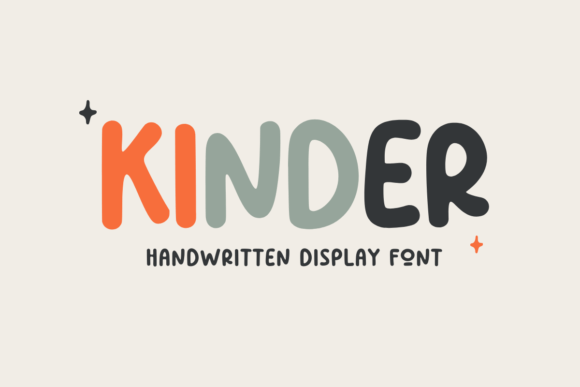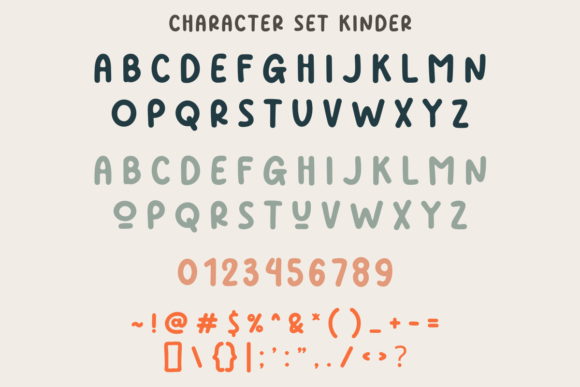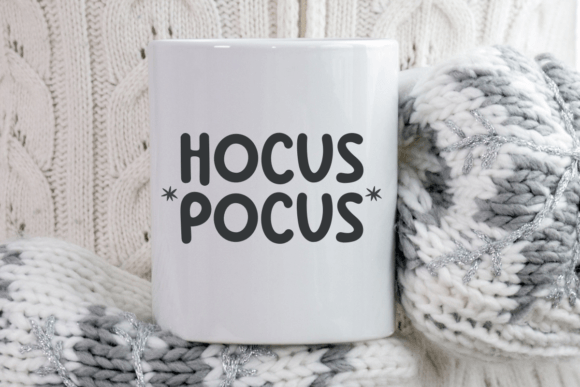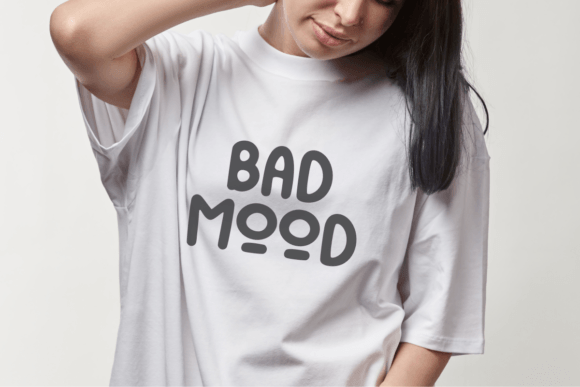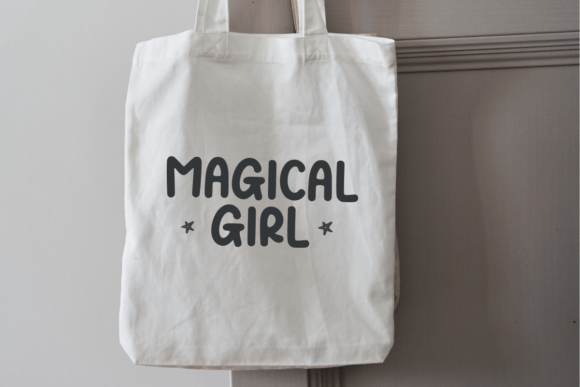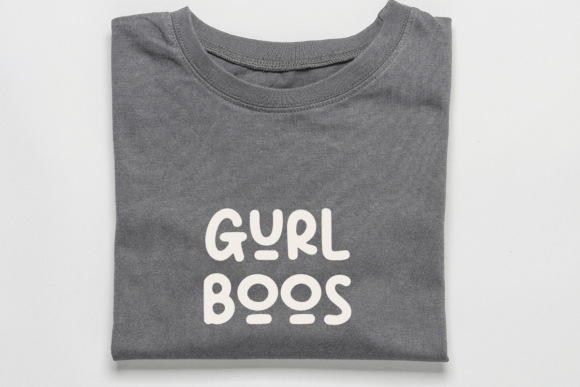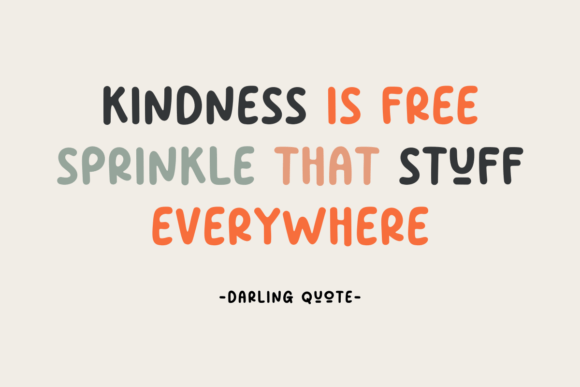
Unleash Your Creativity with Kinder Font
Do you remember the excitement of rummaging through your grandmother’s craft box, filled with colorful markers, glitter, and endless possibilities? As you sat at the kitchen table, surrounded by scraps of paper and glue, you brought your imagination to life. This sense of creative freedom is what drives us to create, and it’s exactly what the Kinder Font embodies.
Kinder Font is a bold, handmade typeface that adds a unique touch to any project. Whether you’re designing a birthday card, a t-shirt, or a mug, this font shines bright, capturing attention and sparking imagination. For designers, Kinder Font is a valuable tool, allowing you to differentiate your creations and bring a personal touch to your work. With Kinder Font, you can turn your ideas into magic, making every project a special and memorable experience.
Kinder Font Key Features
- Unique Characteristics: Kinder Font is a custom-designed font with a playful, childlike feel, featuring rounded shapes and soft lines.
- Font Weight and Style: The font family includes a range of weights, from Light to Bold, and styles, including Regular, Italic, and Bold Italic.
- Scalability: Kinder Font is designed to be highly scalable, making it suitable for use in a variety of applications, from small text to large headlines.
Kinder Font Review
As a designer, I had the chance to work with the Kinder Font and here’s my honest review.
- Unique Character: Kinder Font has a unique character that makes it stand out from other fonts. It’s a perfect choice for designs that require a playful and friendly tone.
- Legibility: Despite its playful nature, Kinder Font is highly legible, making it suitable for body text and other areas where clarity is crucial.
- Font Variations: The font comes in a range of weights and styles, giving designers the flexibility to choose the perfect fit for their project.
- Limited Versatility: While Kinder Font excels in playful and friendly designs, it may not be the best choice for formal or professional projects.
- Overuse: Its unique character can make the font feel overused if not used judiciously. It’s essential to balance its use with other fonts to avoid visual fatigue.
Kinder Font is a great addition to any designer’s toolkit. Its unique character and high legibility make it an excellent choice for designs that require a playful and friendly tone. However, it’s essential to use it thoughtfully to avoid overuse and maintain its effectiveness.
Kinder Font Practical Application Guide
Kinder Font is ideal for creating child-friendly materials, such as:
- Children’s book covers and illustrations
- Education materials, like worksheets and textbooks
To get the most out of Kinder Font, use it in combination with bright and playful colors, and consider adding illustrations or graphics to enhance the design.
Alternatives to Kinder Font for Designers
Great Vibes Font is a modern, elegant script font perfect for titles and headings. It’s ideal for use in creative industries, such as advertising and fashion. Great Vibes Font has a similar friendly and approachable feel to Kinder Font, but with a more sophisticated and refined look.
Carolyna Pro Font is a beautiful, handwritten font that works well for quotes, titles, and body text. It’s suitable for use in various industries, including publishing and education. Carolyna Pro Font has a similar whimsical feel to Kinder Font, but with a more polished and professional look.
Alex Brush Font is a elegant, handwritten font that’s perfect for use in creative and artistic industries. It’s ideal for titles, headings, and body text. Alex Brush Font has a similar organic and natural feel to Kinder Font, but with a more refined and sophisticated look.
Dancing Script Font is a lively, handwritten font that’s perfect for use in creative industries, such as advertising and entertainment. It’s ideal for titles, headings, and body text. Dancing Script Font has a similar playful and energetic feel to Kinder Font, but with a more dynamic and attention-grabbing look.
Exploring Kinder Font